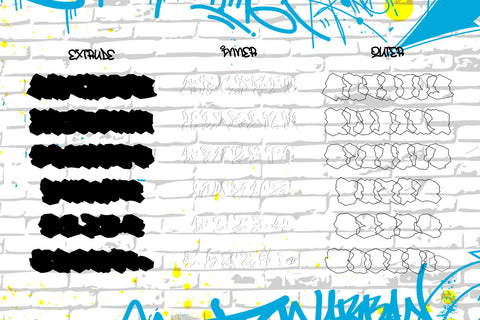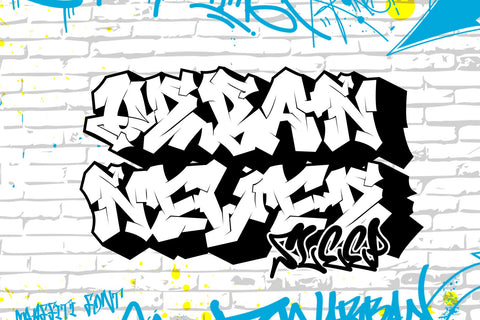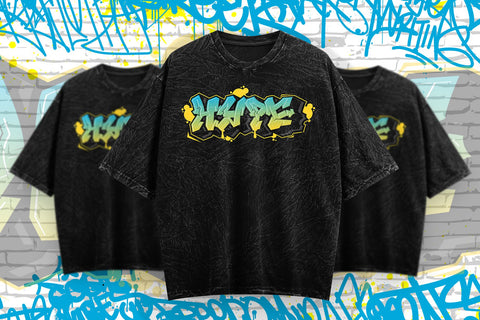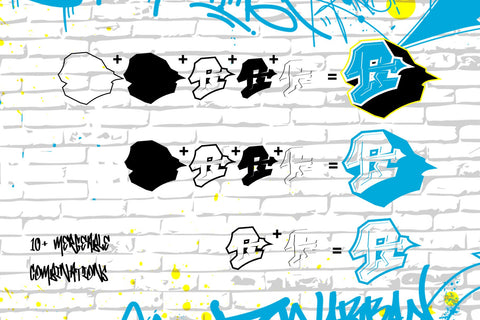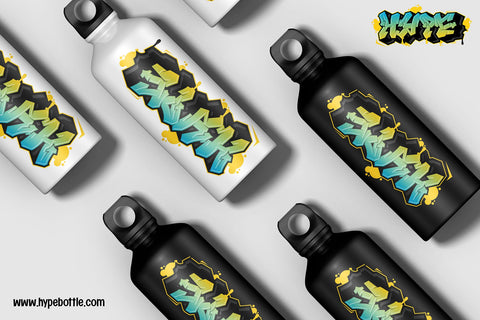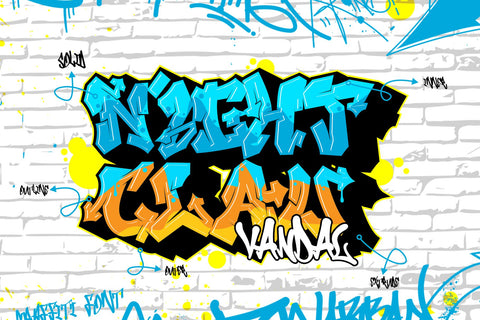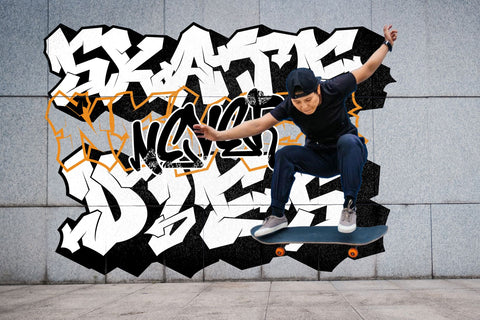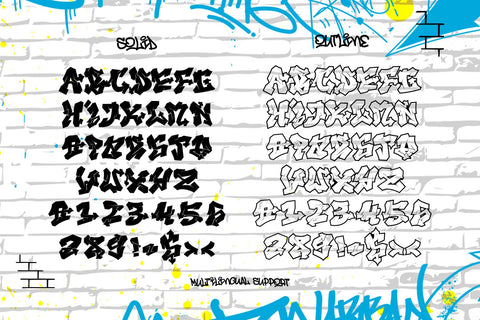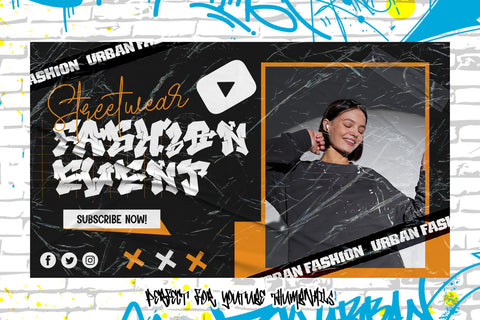
Nightclaw Vandal – Wild 3D Layered Graffiti Font with Arrow-Tagged Style
Nightclaw Vandal is a wild-style graffiti font featuring bold, dynamic characters with expressive arrow decorations. Designed with 5 stackable 3D layers — Solid, Outline, Extrude, Outer, and Inner — it gives your designs a dimensional, street-art-inspired look. Perfect for streetwear branding, hip-hop designs, urban posters, sticker packs, digital art, and more. Each character is hand-crafted to bring that authentic graffiti vibe to your projects.